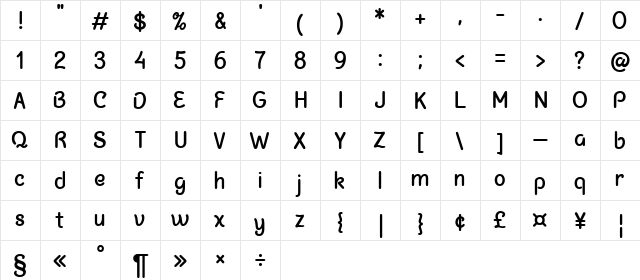
Chalk Marks Bold
Design Context for Chalk Marks Typeface
Chalk Marks offers clean, dependable letterforms without strong stylistic allegiance, making it a practical choice for designers who need flexibility. Its bold stroke weight gives it real presence on the page.